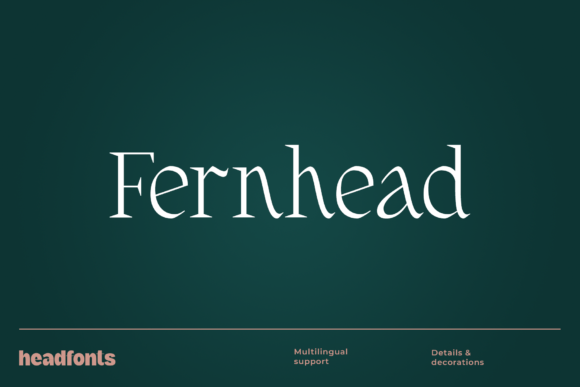
Dive into the world of Fernhead Font, a captivating serif font family that exudes elegance and distinctiveness. This extraordinary creation by Headfonts is not just a collection of letters; it's an artistic expression that dances on the page.
Fernhead Font is a symphony of decorative elements and organic curves, a visual masterpiece that captivates the eye. Its nonconformist design breaks free from convention, making it the perfect choice for those seeking individuality and flair. Whether you're a tattoo artist looking to create unique body art or a designer seeking to add a touch of whimsy to your projects, Fernhead Font is your muse.
With its high x-height, Fernhead Font asserts its presence, ensuring maximum visibility and legibility. The decorative serifs add an extra layer of sophistication, hinting at a timeless era of craftsmanship. Each character seems to flow from the pen, capturing the essence of handwritten elegance. From logos and branding to wedding invitations and social media posts, Fernhead Font adds a touch of magic to every project.
Unleash your creativity and let Fernhead Font ignite your designs. Its versatility knows no bounds, making it suitable for a wide range of projects, from quirky tattoos to polished marketing materials. This font is a storyteller, transforming ordinary words into captivating narratives. Its curves and flourishes evoke a sense of nostalgia, while its contemporary twist keeps it firmly rooted in the present.
Embrace Fernhead Font and witness the transformation of your creative endeavors. Its captivating beauty and undeniable charm will leave a lasting impression on your audience. Dive into the world of Fernhead Font today and let your imagination soar!